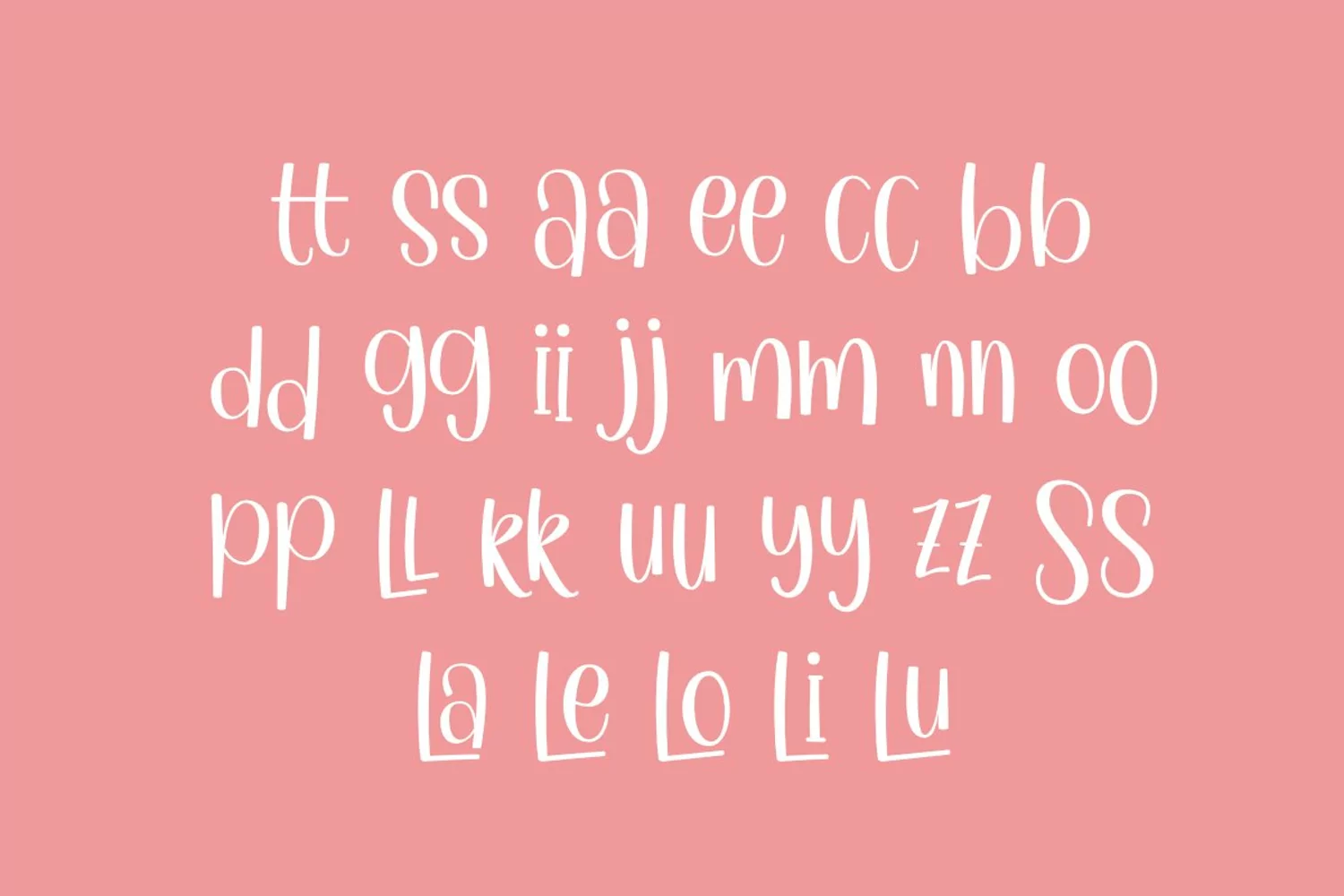
Holla Cream | Display Trio Font
Introducing "Holla Cream"
Holla Cream Is a Display Font With 3 Style (Regular,Outline and Shadow)
You Can Mix And Match for Your Awesome Project
Uppercase & Lowercase
Ligatures
Alternate